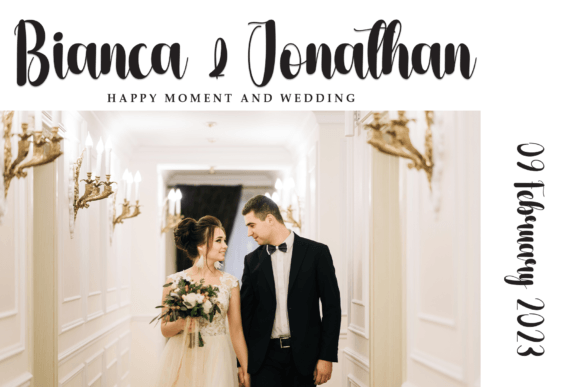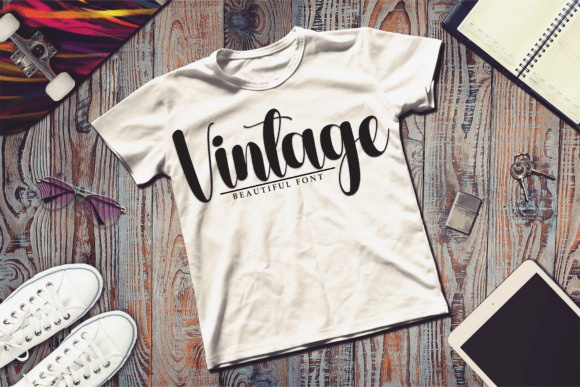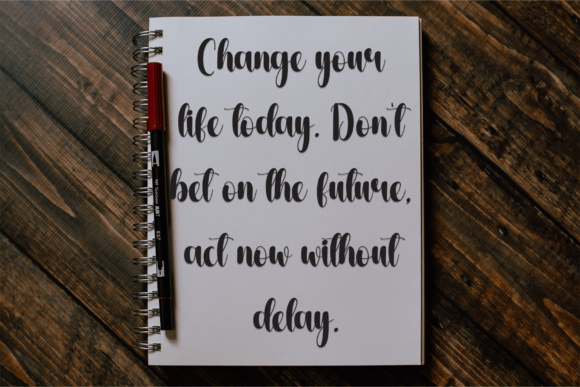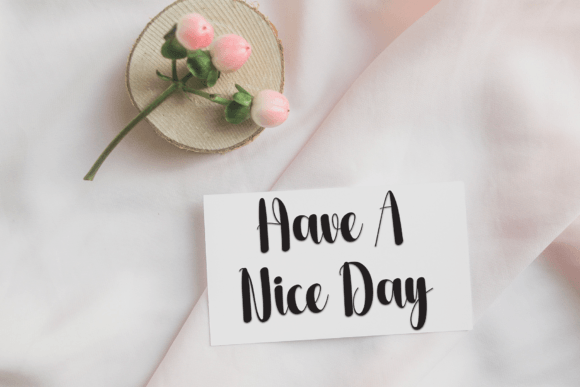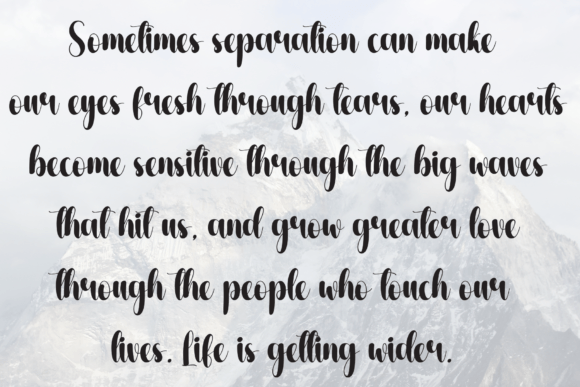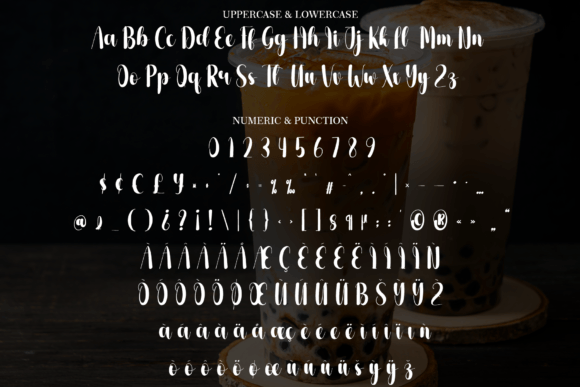
Milktea Font – Free Download
Introduction to Milktea Font
This is a sweet and friendly handwritten display font.
Cute and fun, this font is ideal for writing wedding invitations, cards, or any other design that might need a fun touch .